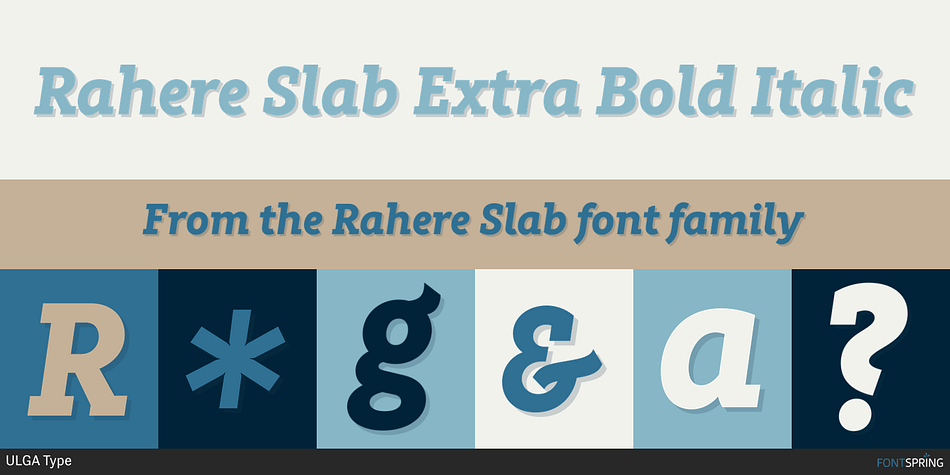
Designed by Michael Gills, Rahere Slab is a serif and slab serif font family. This typeface has twelve styles and was published by ULGA Type.
Rahere Slab Extra Bold Italic
Part of the extended Rahere typeface family, Rahere Slab is a humanist slab serif (or Egyptian) in six weights from light to extra bold with corresponding italics.
Rahere Slab – like its sibling Rahere Sans – features subtle detailing, giving the typeface a distinctive, warm appearance without distracting the reader. Legible at large and small sizes, Rahere Slab is a versatile, workhorse typeface that is suitable for a wide range of applications, such as information signage, packaging, annual reports, advertising, brochures, catalogues, screen text and visual identities.
Slab serifs are ideal for projects that need to convey a sense of authority tempered with diplomacy or messages that just need some serious oomph – and Rahere is a great slab for the job.
The italic lowercase is more cursive and expressive than the roman and when they’re used together the italic displays enough character to create emphasis while harmonising admirably. Set on its own (for example, pull-out quotes), the italic exudes a charm that draws attention to the text.
The character set covers most European languages plus Vietnamese. Each weight contains lining & non-aligning numerals in both proportional & tabular spacing. The tabular numerals share the same width across all weights and styles (matching Rahere Sans too) – indispensable for financial tables in annual reports.
If a companion sans serif is needed, Rahere Sans is the perfect partner. They are both part of the extended Rahere typeface family and have been designed to complement each other beautifully.